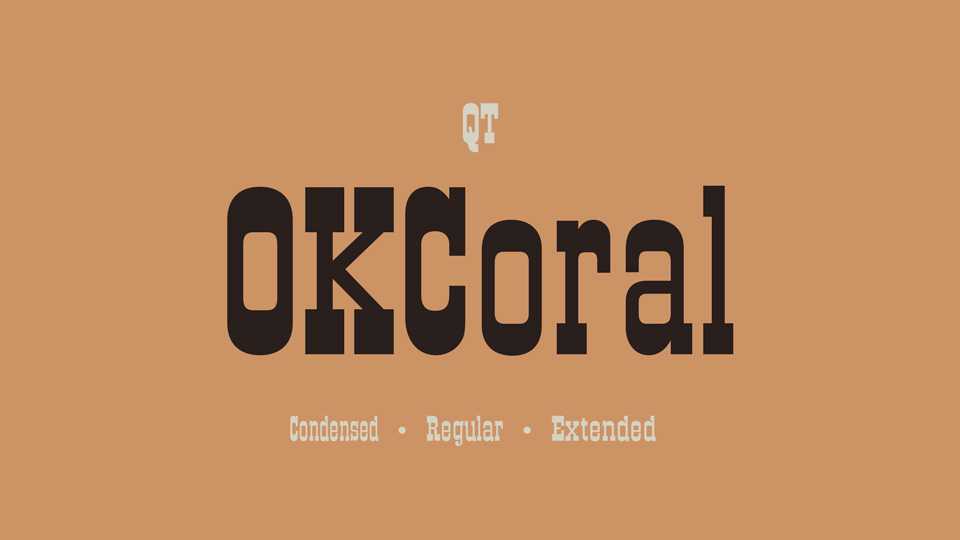
Download OKCoral font, a classic Western-style slab serif typeface in 3 styles, a homage to the old woodtypes. Due to its robust figures, OKCoral is particularly effective when used in headlines, posters and Wild West style artworks.